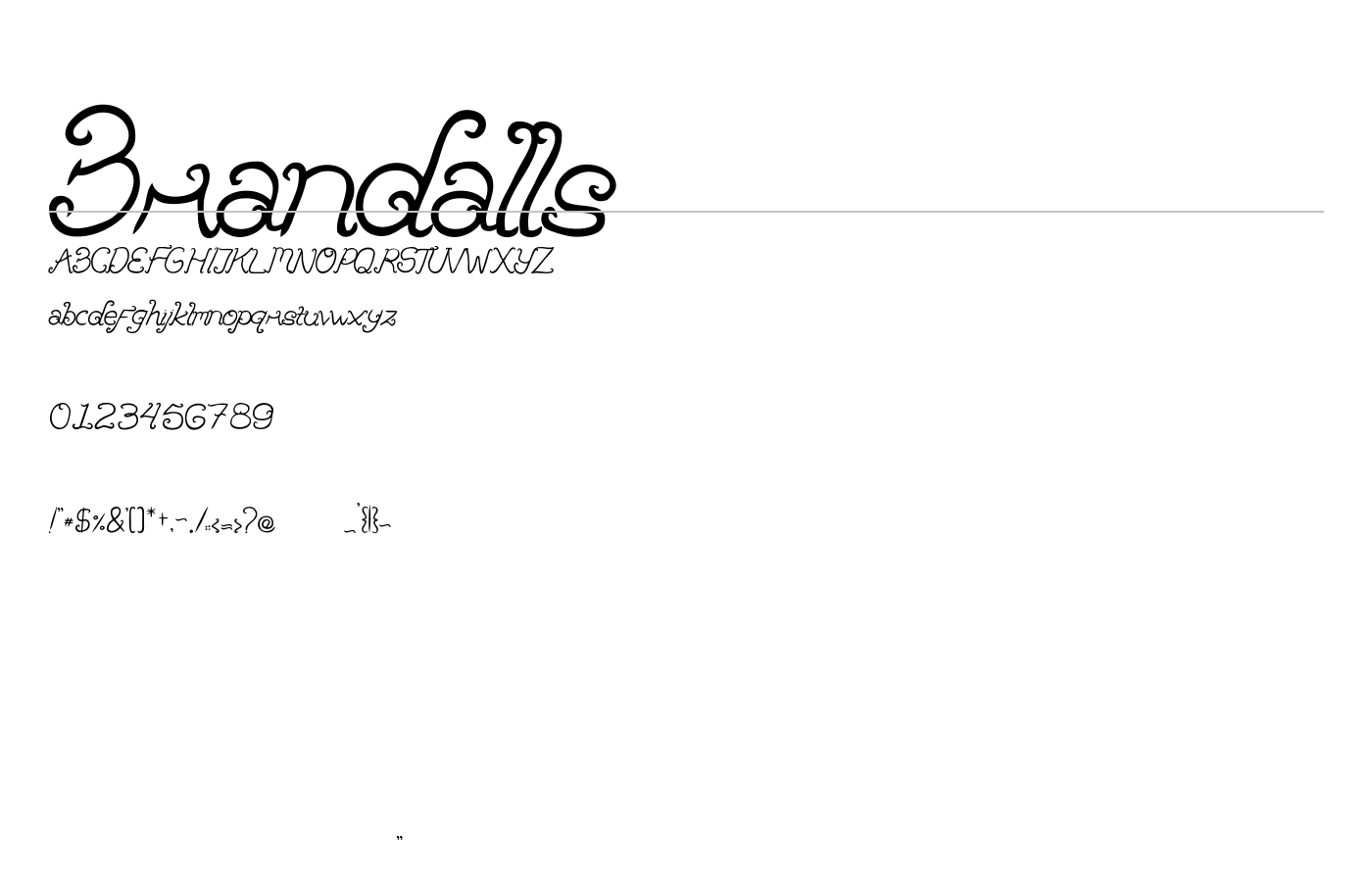
Brandalls is a charming script font with playful, swirling letterforms that blend a hand-drawn feel with elegant curves. Its thin, delicate strokes and unique curls give it a whimsical personality, making it ideal for creative branding, invitations, or decorative headlines where a light, artistic touch is desired. This font works best in designs that seek a friendly yet sophisticated style, adding warmth and individuality to any project.
Brandalls Font